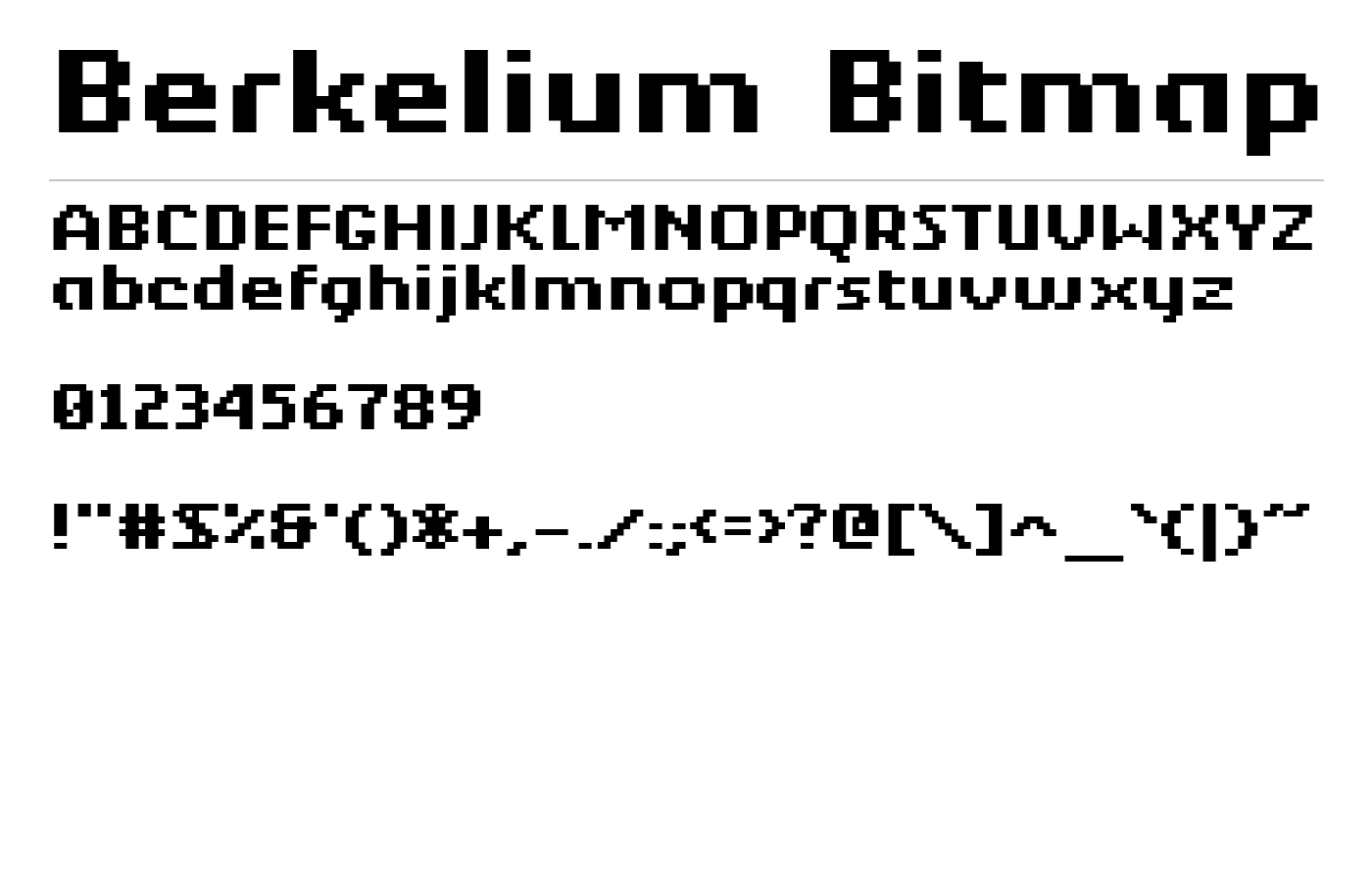
Berkelium Bitmap is a bold, monospaced sans serif font with a pixelated, geometric style that evokes early digital and gaming aesthetics. Its high contrast edges and blocky letterforms give it a strong, retro-tech personality, making it ideal for pixel art, tech-themed projects, and digital interfaces where a nostalgic or electronic vibe is desired. This font works best for headlines, logos, and creative uses that require a distinctive, vintage computer look.
Berkelium Bitmap Font
About Berkelium Bitmap Font